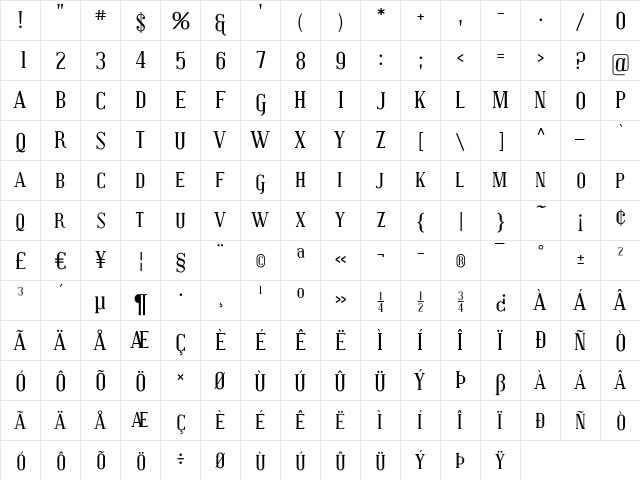
Covington SC Regular
| Designer | Derek Vogelpohl |
Design Context for Covington SC Typeface
Covington SC is a composed and adaptable typeface that performs quietly and consistently across a wide range of design contexts.